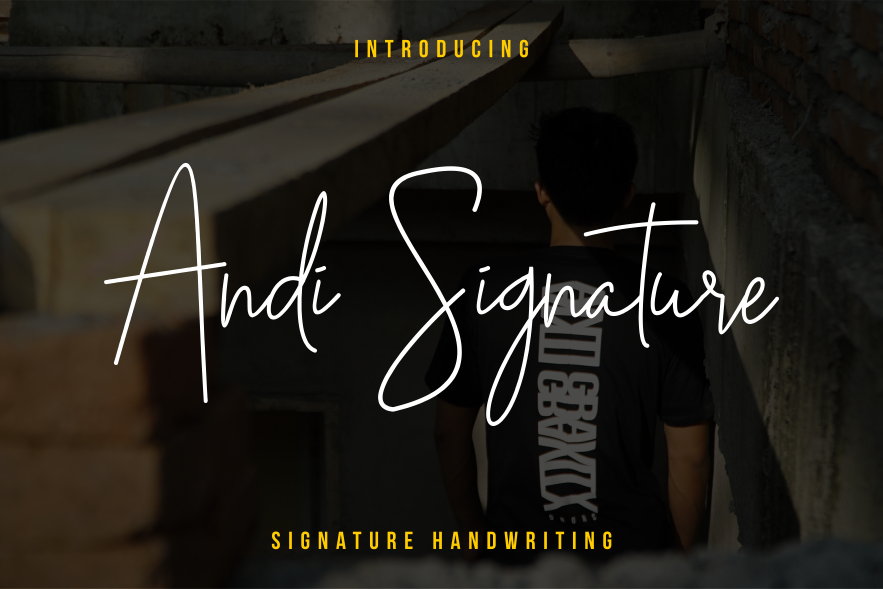
Andi Signature
Andi Signature style - a new modern & fresh script with a handwritten and signature style make this font looks elegant, natural, stylish and perfect for any awesome projects that need handwriting taste.